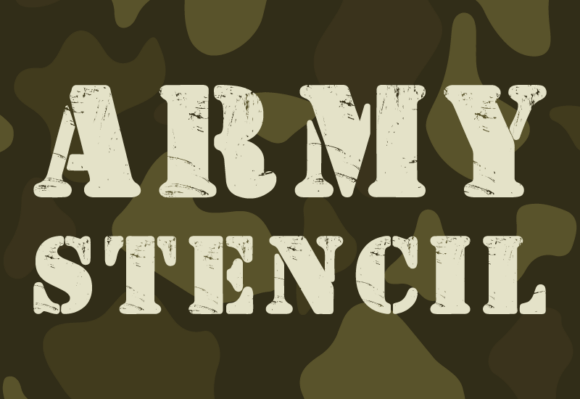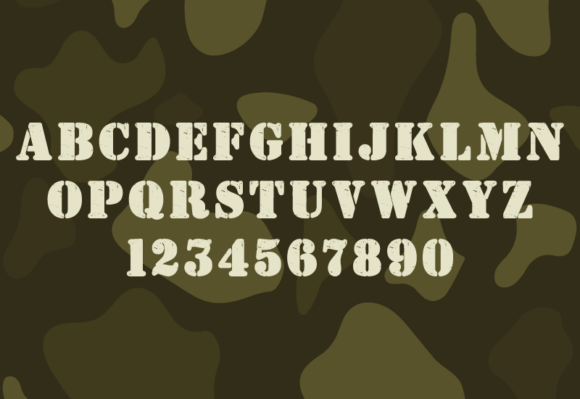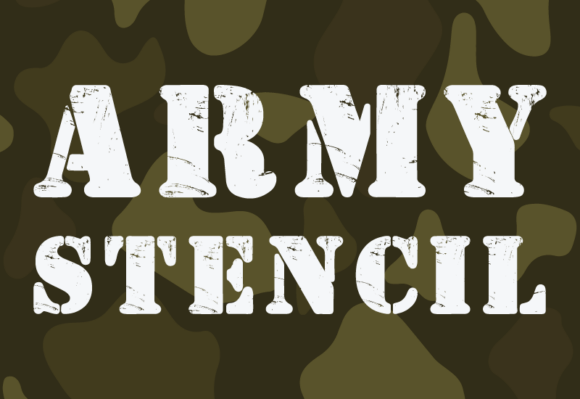
Army Stencil Font
Dive into a world of distinct style with the unparalleled ‘Army Stencil’ sans-serif font. Celebrated for its fresh and slightly unconventional approach, Army Stencil ventures beyond the customary boundaries of war-inspired typography. Its characteristic bold, grunge, remorseless lines are infused with a military and conflict game aura, all converging towards a weathered finish. As a typographical trailblazer, Army Stencil personifies daring audacity and relentless uniqueness.